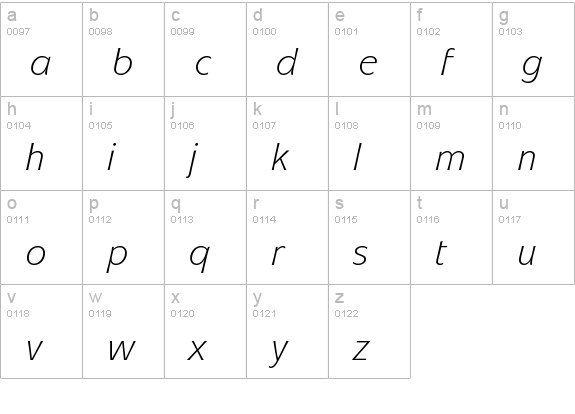
MixageEF-BookItalic font is a stylish and elegant typeface designed to add a touch of sophistication to your projects. Its italicized design exudes a sense of creativity and modernity, making it the perfect choice for titles, headings, and other design elements that require a touch of flair. What sets MixageEF-BookItalic font apart is not only its aesthetic appeal but also the fact that it is available for free download at FontsMarket.com. This means that you can easily access and use this beautiful font in your designs without any cost involved. Whether you're designing a website, creating marketing materials, or working on a creative project, MixageEF-BookItalic font offers versatility and style that will elevate your work to the next level. Download it for free today and add a touch of sophistication to your designs.